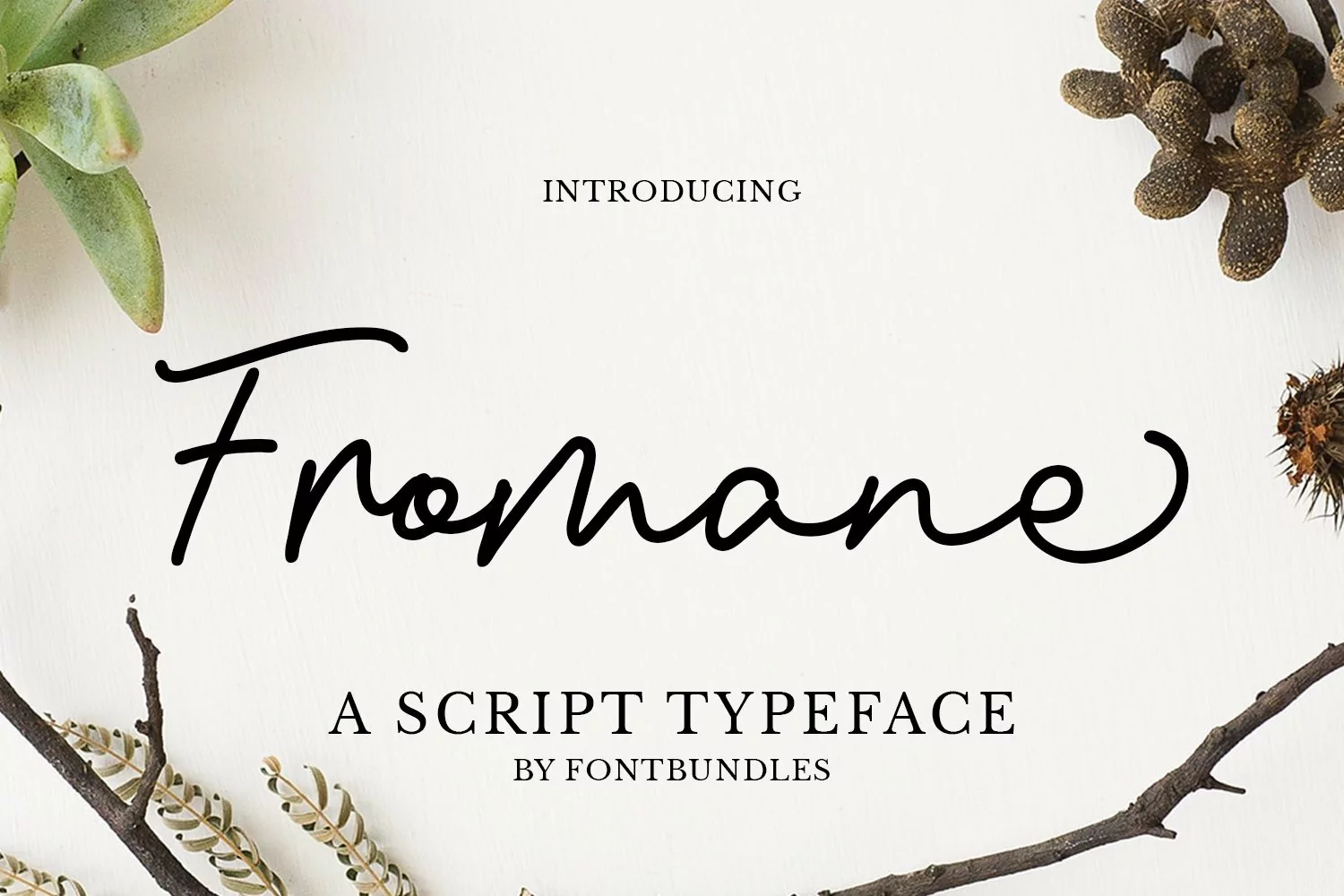
Web Font Fromane
Fromane is a Script Typeface. Perfect for quotes, gift needs, headline, tittle, logo, branding, merchandise, packaging, signature, wedding needs, and many more.